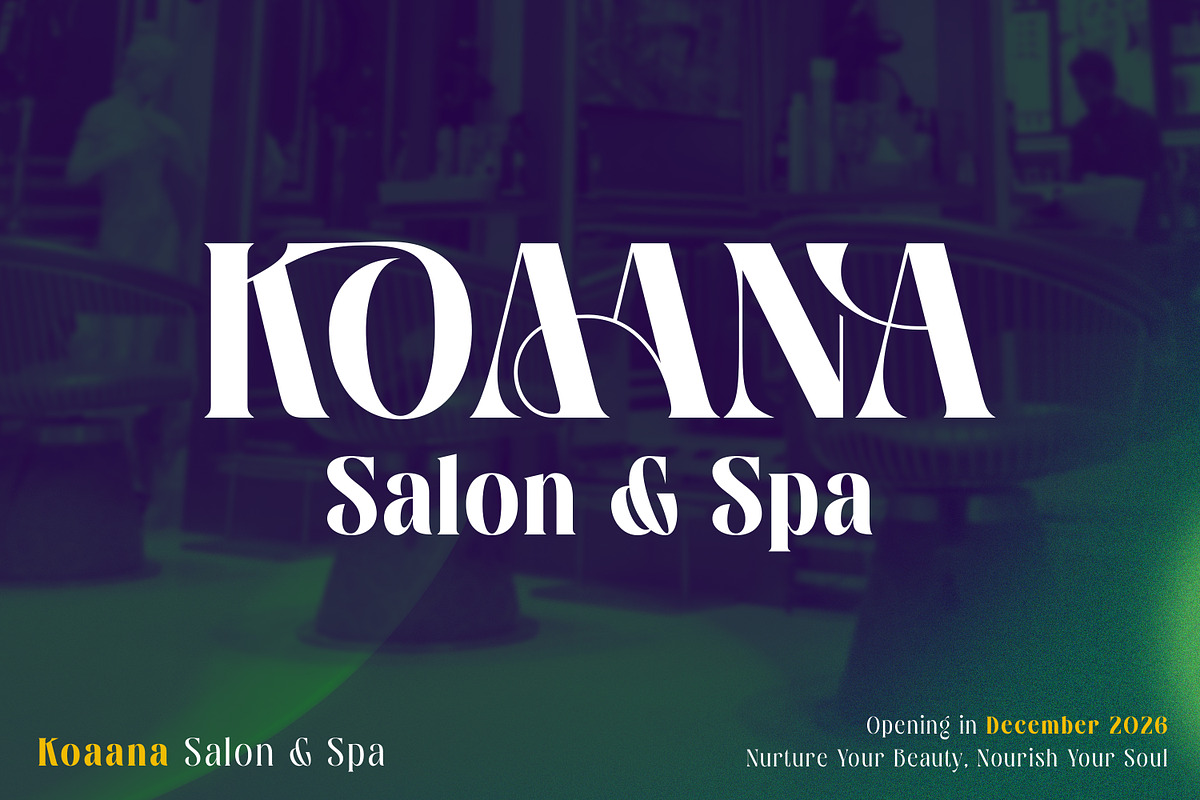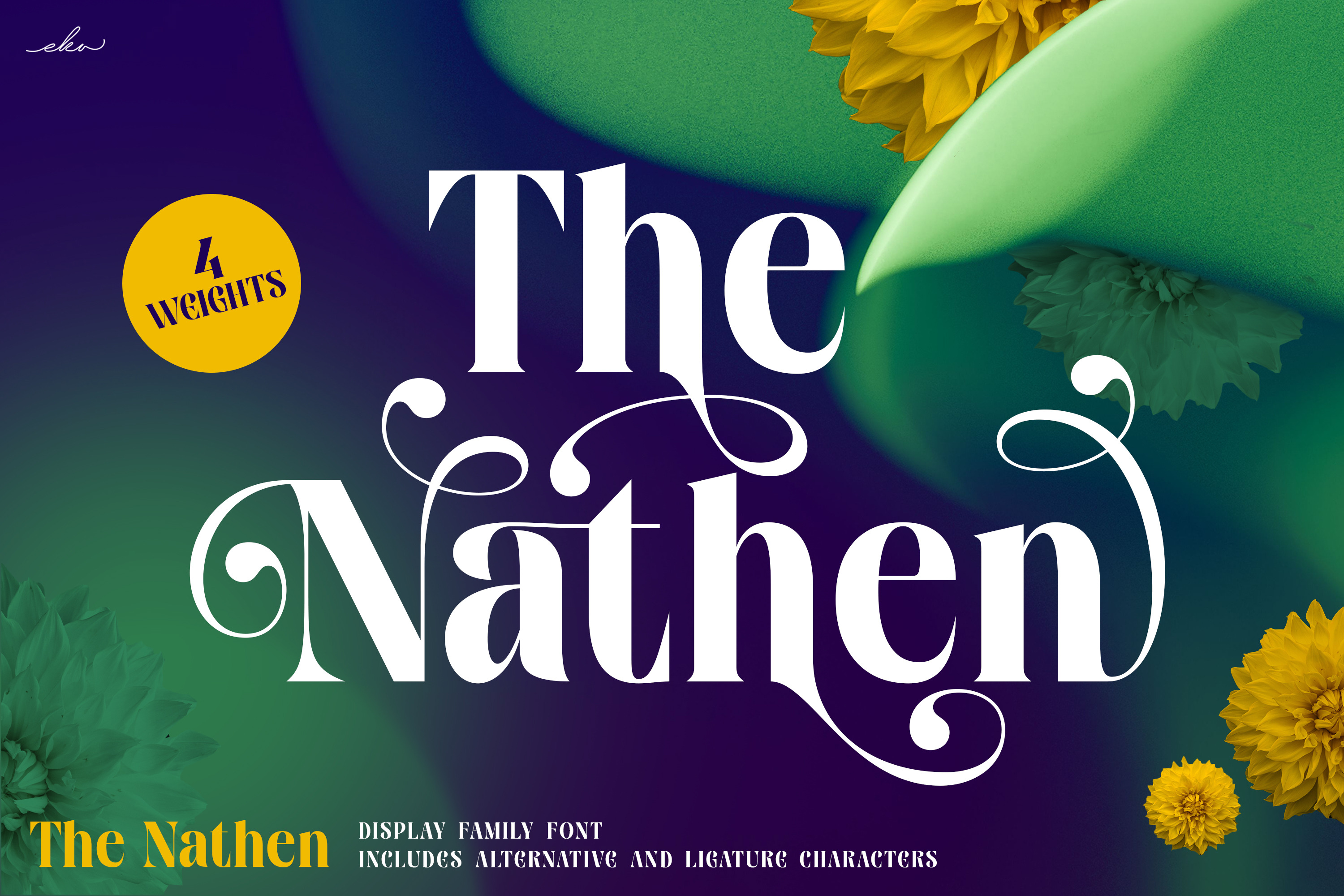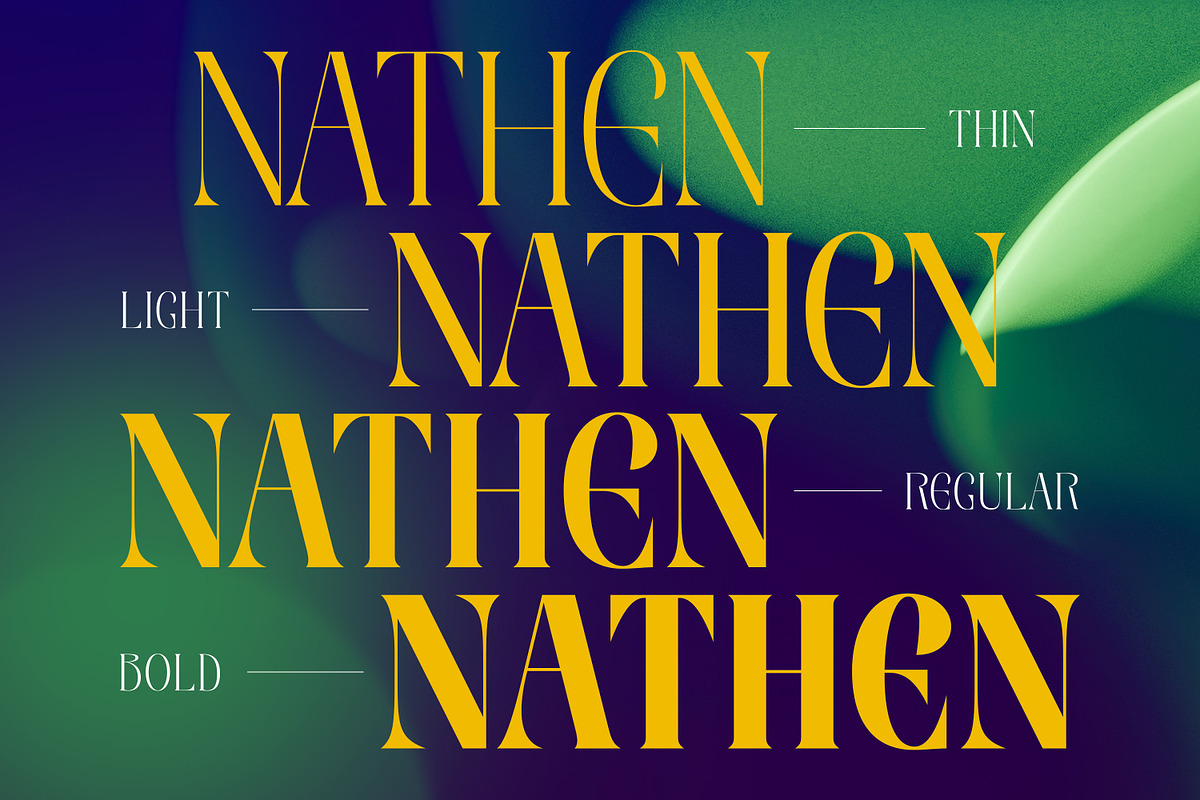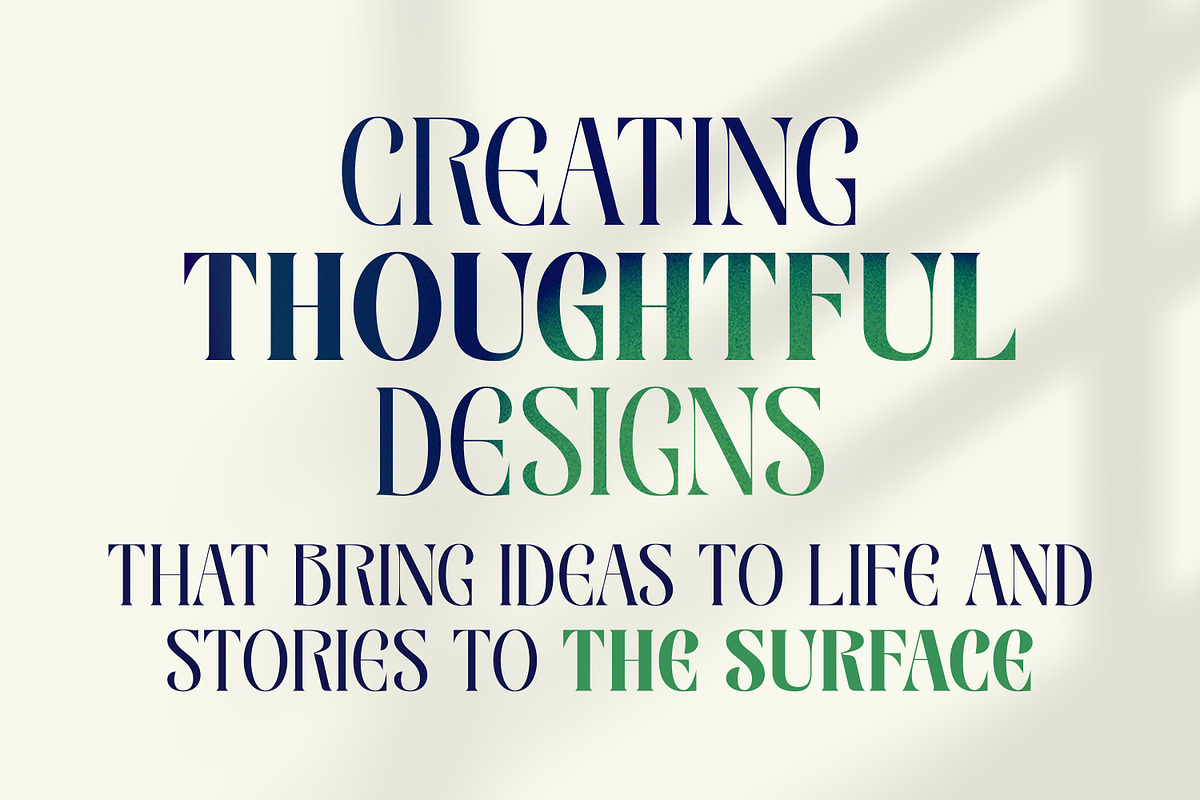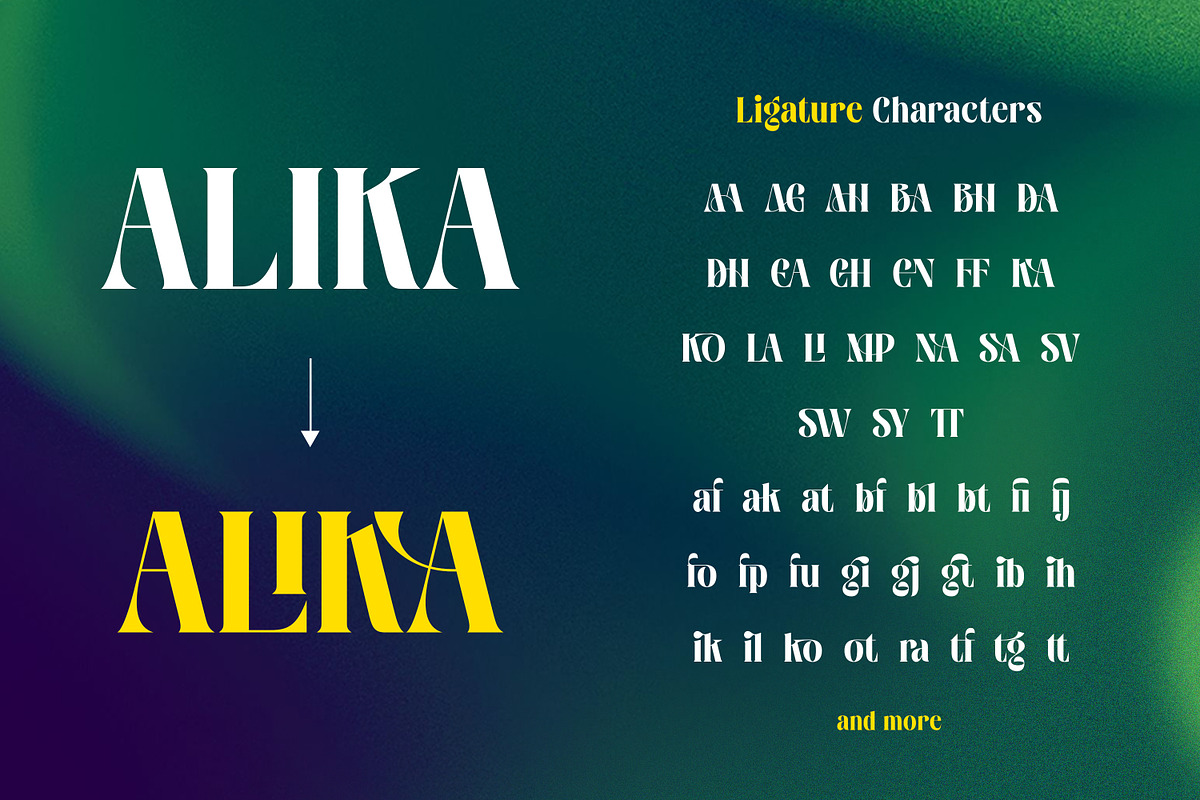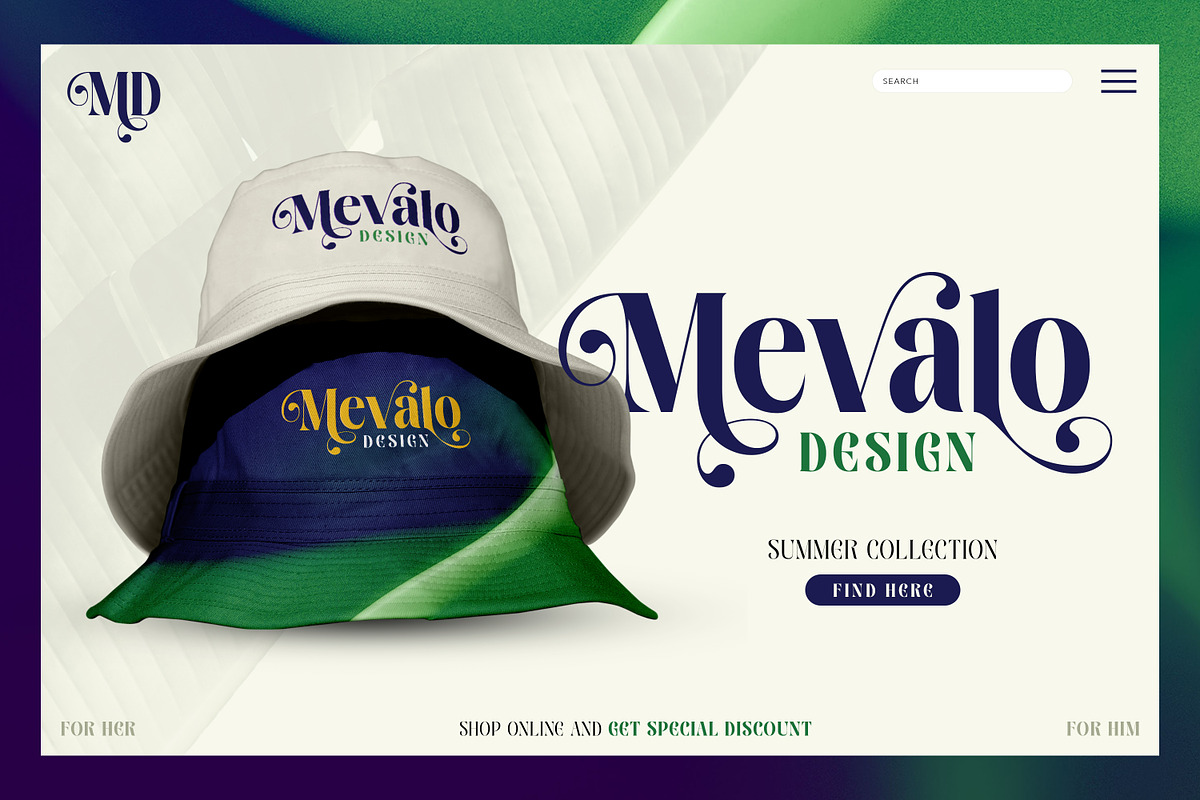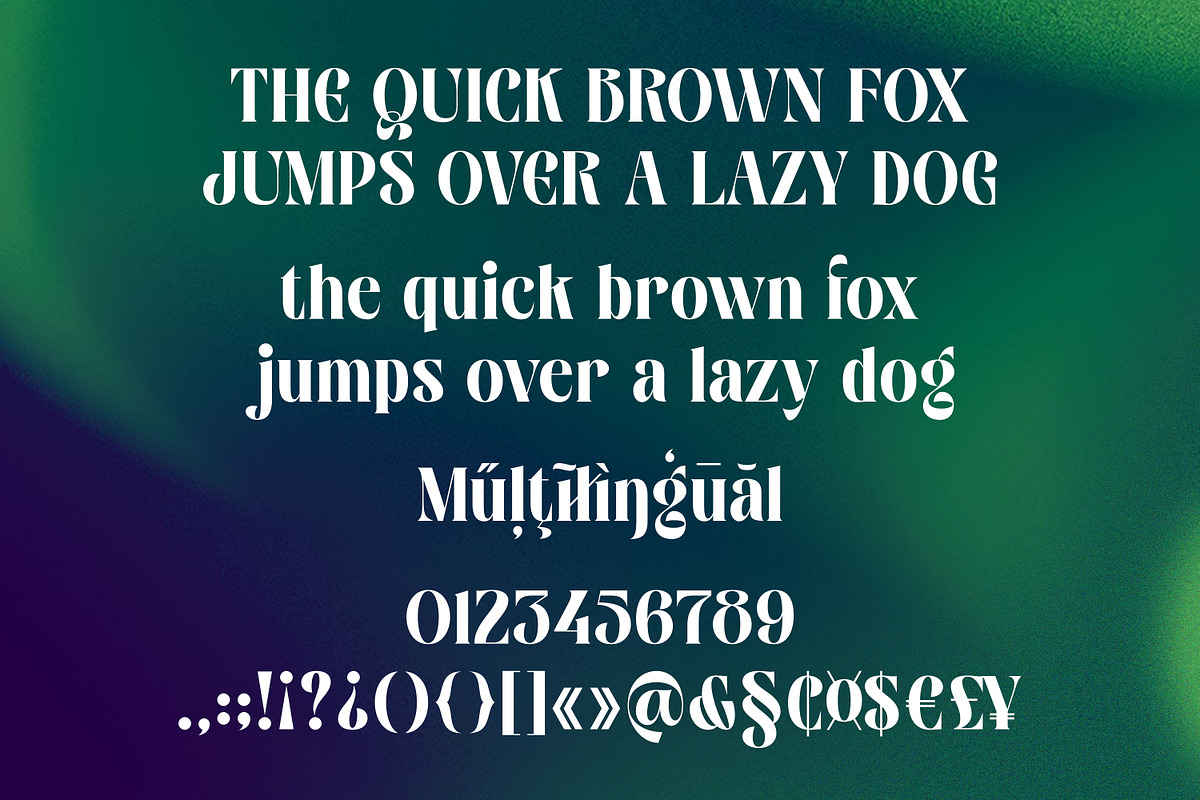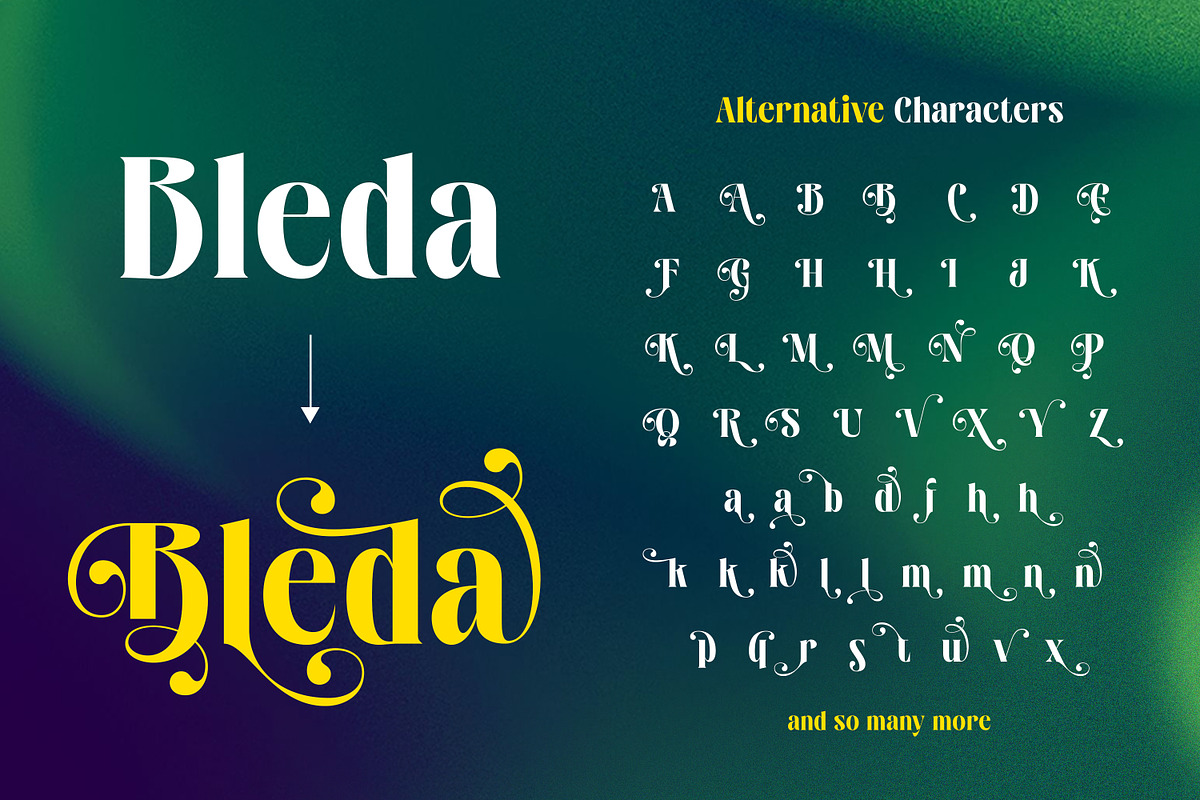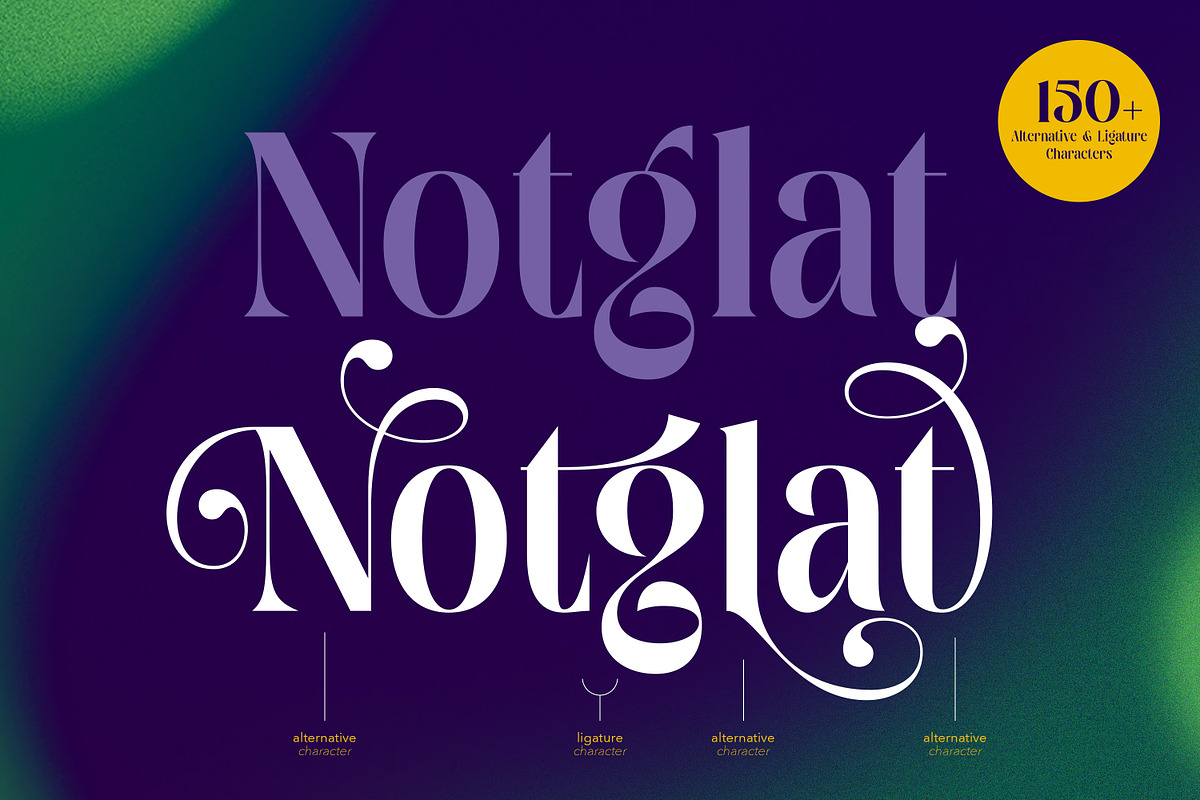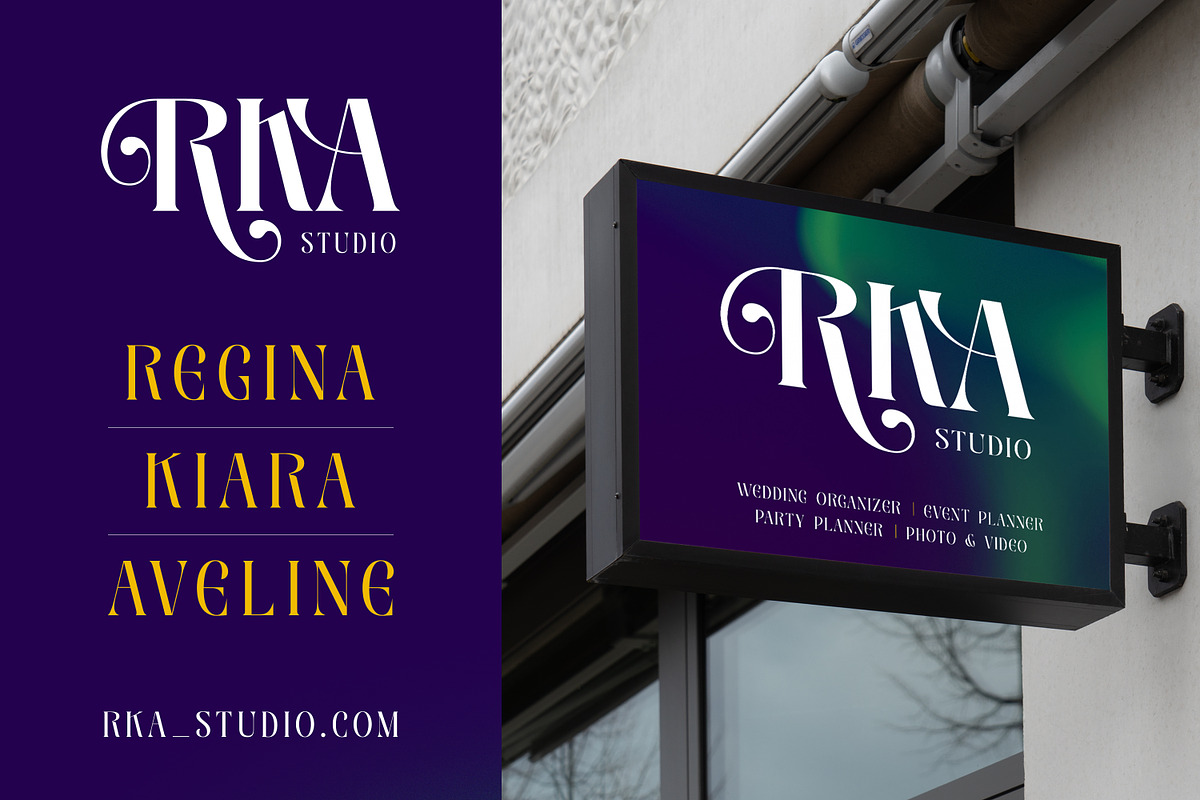
Nathen - Elegant Serif Display Font
Nathen is an elegant serif display typeface designed to bring a sophisticated and distinctive touch to your typography. With its high-contrast serif forms, refined details, and expressive curves, Nathen creates a beautiful balance between classic elegance and modern editorial style. Nathen comes in 4 weights, giving you flexibility to create both subtle and bold typographic compositions. To make your designs even more unique, Nathen includes a wide selection of alternative characters and ligature characters. Mix and match the characters to create beautiful typography, elegant headlines, and beautiful branding elements. Whether you're designing a fashion brand, beauty or cosmetics identity, editorial layout, logo, packaging, wedding stationery, poster, magazine cover, or social media artwork, Nathen is designed to make your typography stand out. Nathen is more than a serif font — it's a versatile display family made for creating sophisticated and unforgettable designs.
4 Weights
Uppercase & lowercase letters
Numerals & punctuation
Stylistic alternatives
Ligature characters
Decorative / swash characters
Suitable for branding, editorial, fashion, packaging & display design